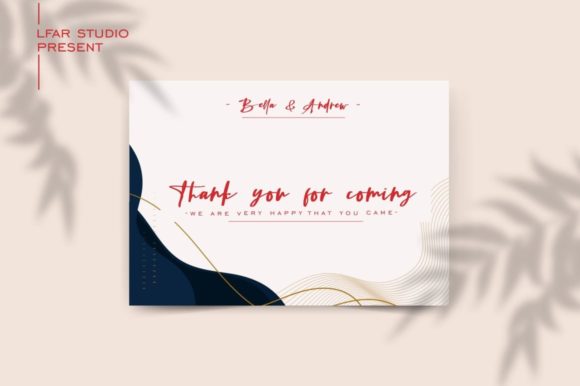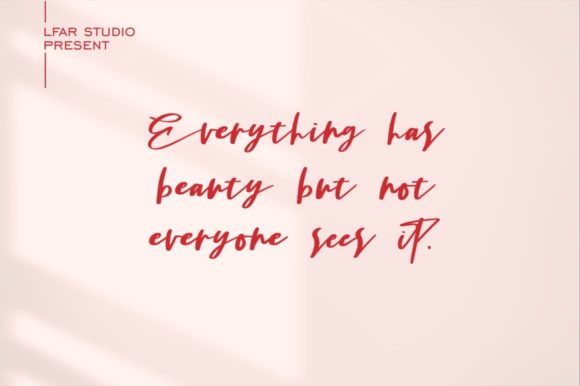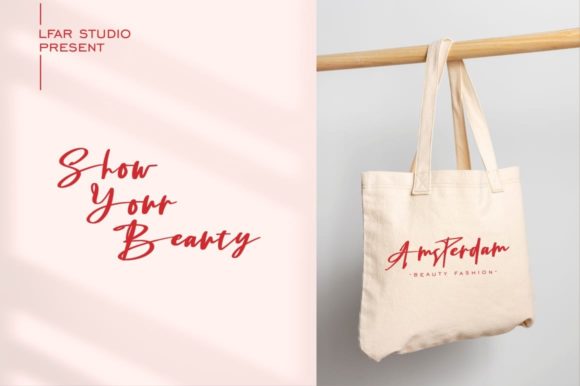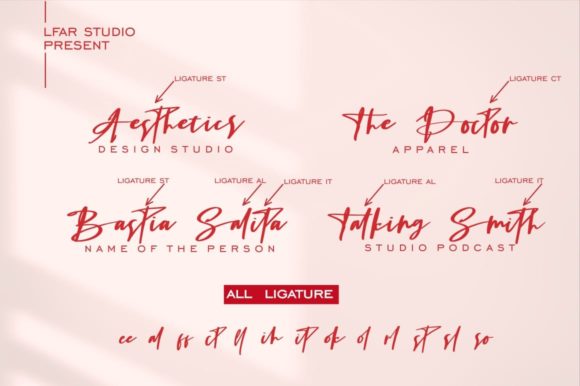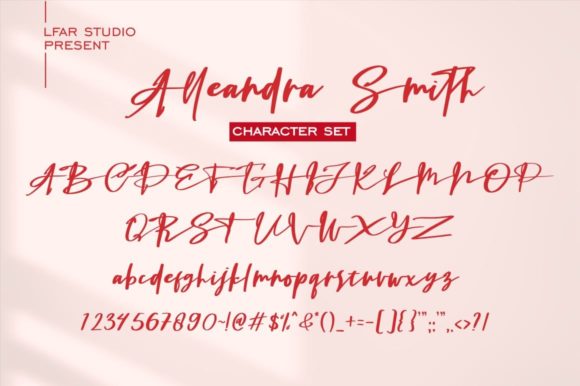
Introduction to Alleandra Smith Font
As a designer, you’ve probably found yourself stuck in a creative rut, staring at a blank canvas, waiting for the perfect font to bring your vision to life. That’s where the Alleandra Smith Font comes in – a beautiful, elegant handwritten font that’s sure to inspire your next project.
With its cool and sophisticated style, the Alleandra Smith Font is perfect for designers looking to add a touch of sophistication to their work. Whether you’re creating a wedding invitation, a title for an adventure show, or simply want to add some flair to your photography, this font is sure to impress. And with its PUA encoding, you’ll have access to all of the glyphs and ligatures you need to bring your creative vision to life.
As a valuable resource for designers, the Alleandra Smith Font offers high-quality, free downloads that can be easily integrated into your next project. Its transparent background makes it easy to use on any design, and its elegant style is sure to elevate your work to the next level.
Key Features of Alleandra Smith Font
- Unique and creative font style, ideal for various design projects and free download.
- Features a transparent background, allowing for easy placement over any image or design element.
- Includes multiple font weights and styles, providing versatility for various design applications.
- Designed with a high resolution of 300 DPI, ensuring crisp and clear text output.
- Perfect design resource for graphic designers, digital artists, and anyone looking for a unique and creative font.
Honest Review: Alleandra Smith Font
I recently had the chance to work with the Alleandra Smith Font and I must say, it was a delightful experience. As a designer, I’m always on the lookout for high-quality fonts to elevate my creative projects, and this one definitely delivered.
Here are some of the things that worked well for me:
- ✨ The font is incredibly versatile, making it perfect for a wide range of design projects.
- ✨ The transparent background option is a game-changer for designers who need to create intricate designs with complex backgrounds.
- ⚠️ The font may not be suitable for projects that require a very formal or corporate tone.
- ⚠️ Some users may find the font a bit too ornate or busy for certain design projects.
Overall, I was impressed with the Alleandra Smith Font and would definitely recommend it to designers looking for a high-quality, free design resource for their creative projects.
Tips for Getting the Most Out of Alleandra Smith Font
Use Alleandra Smith Font for headings and titles to add a touch of elegance to your design. Experiment with different font sizes and colors to create a visually appealing effect. This font is perfect for creating high-quality designs, from business cards to brochures.
Alleandra Smith Font is ideal for creative projects such as wedding invitations, business cards, and product packaging. Its high-quality design makes it perfect for printing and digital use. With a transparent background, you can easily overlay your text on any image or design.